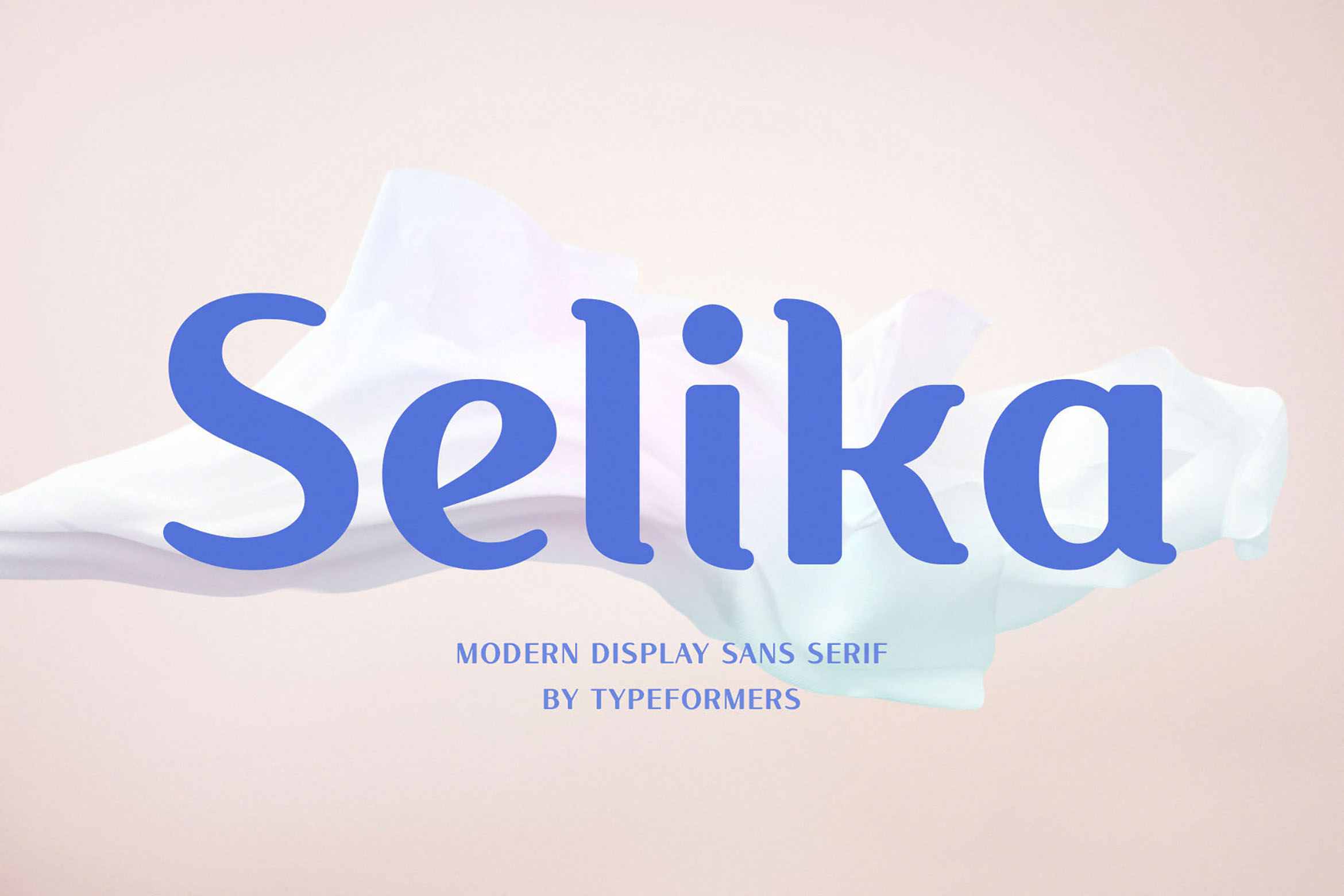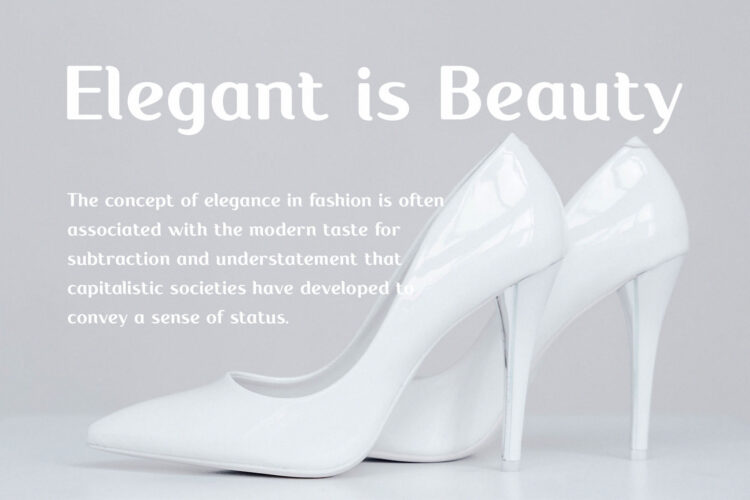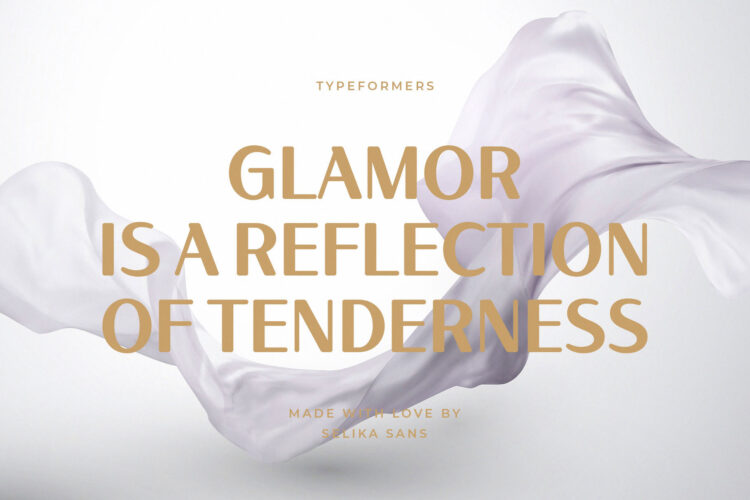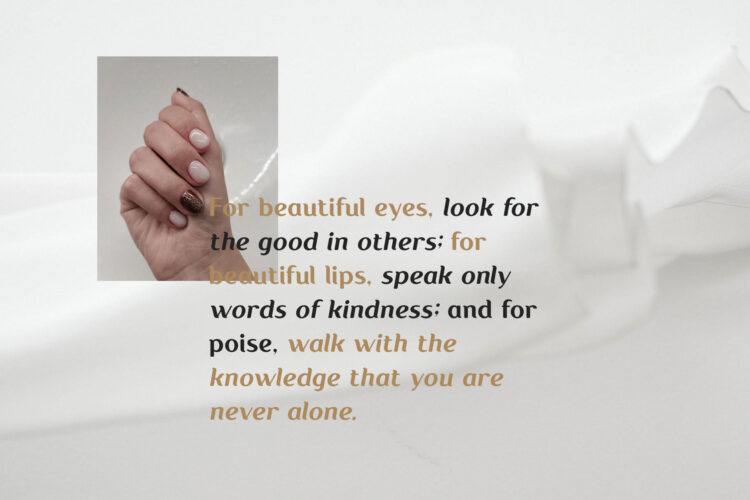
Introducing Selika – Elegant Display Sans.
Selika is a modern and simple font, best used as a display for headings, logos, branding, magazines, product packaging and invitations.
Selika – Elegant Display Sans Serif